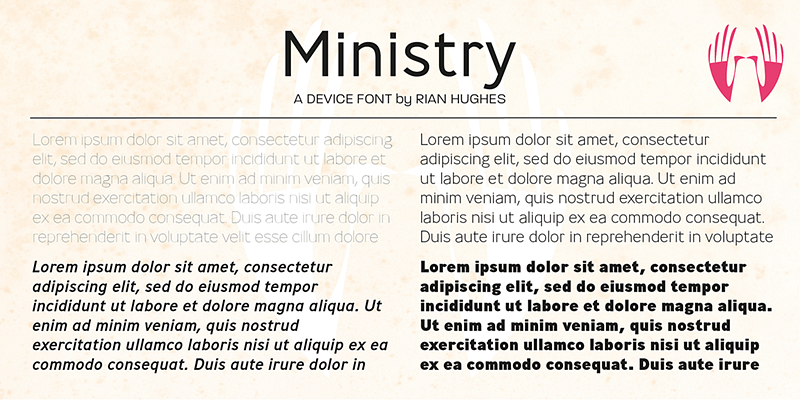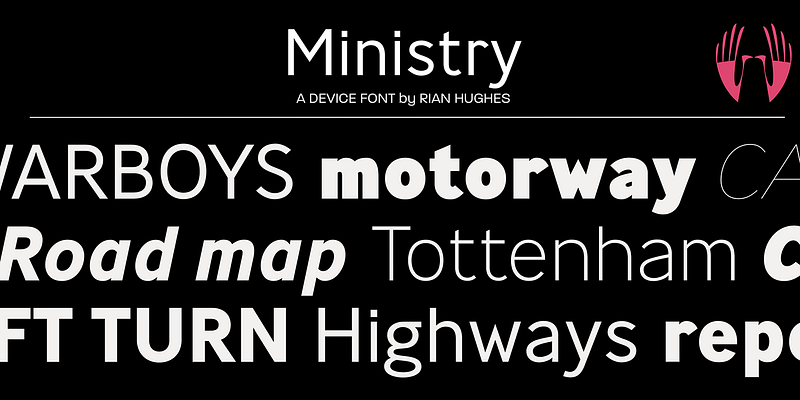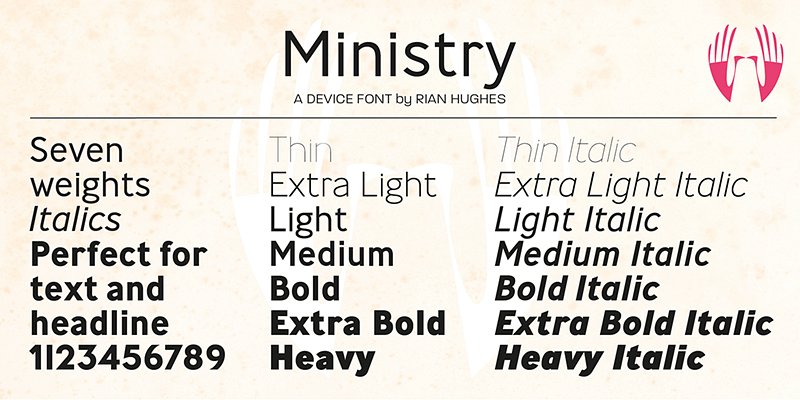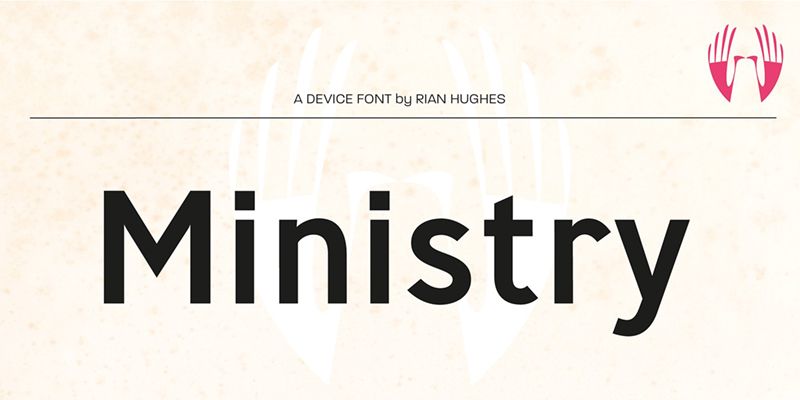
Based on the type used on British road signs from the 30s to the 60s, Ministry has an authoritative pedigree with the warmth and heritage of a traditional sans-serif.
Type, design and imagery by English illustrator and typographer Rian Hughes.